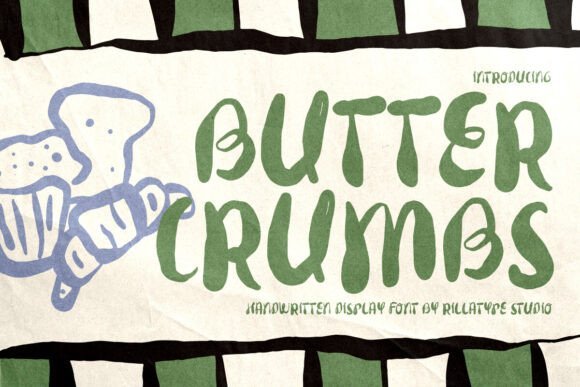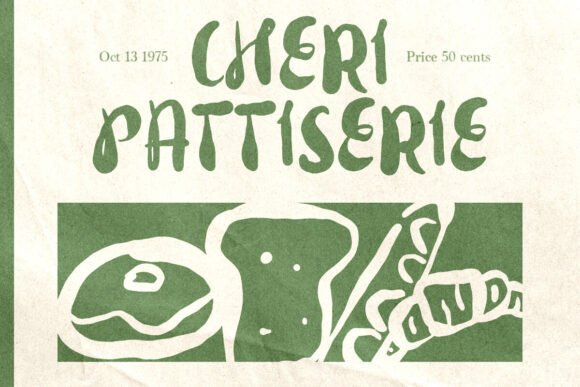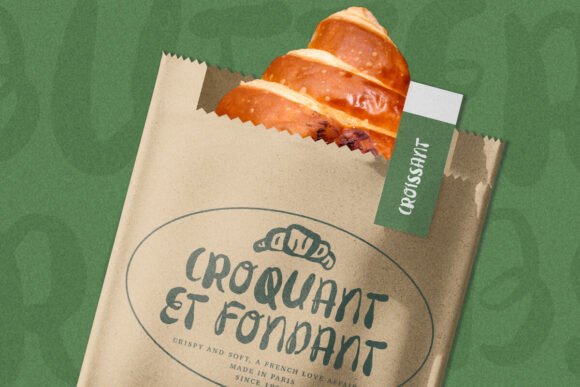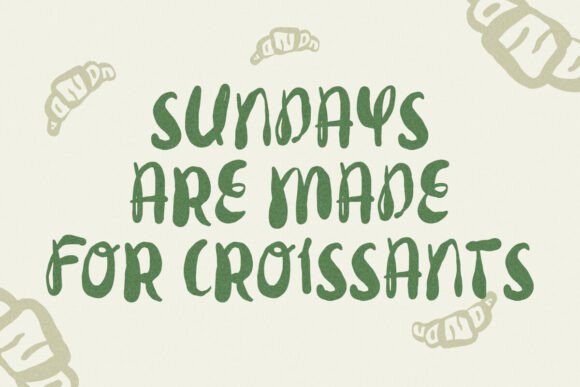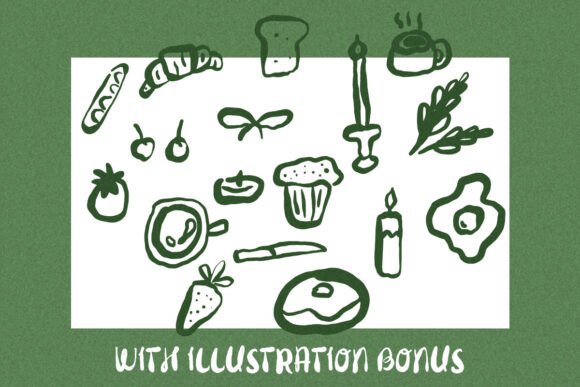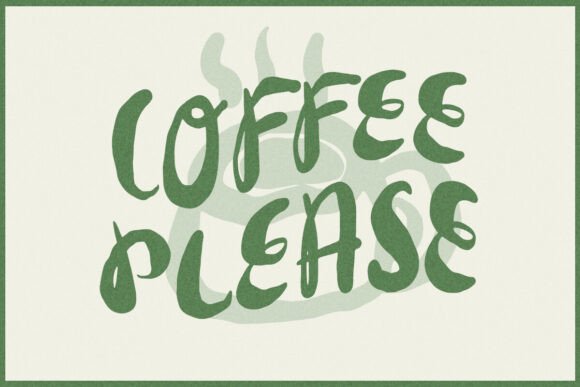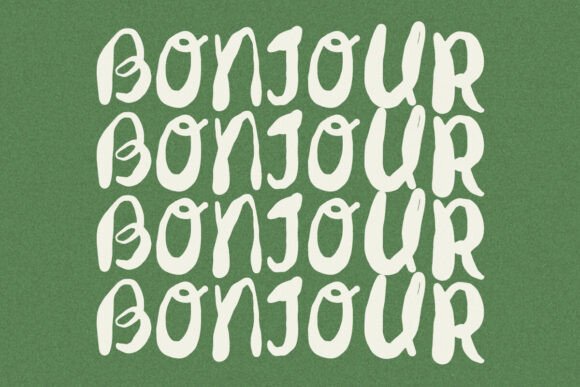
The Perfect Recipe for Design Success: Bread Crumbs Font
Remember that moment when you’re brainstorming ideas for a new food-themed project, and you’re stuck on the perfect font to match your vision? You know, the one where you’re scrolling through font libraries, trying to find that perfect mix of whimsy and charm. That’s exactly where Bread Crumbs Font comes in – a playful, hand-drawn font that’s sure to add a dash of personality to your design.
With its casual, handwritten style, Bread Crumbs Font is perfect for menu designs, café boards, or anything that needs a fun, appetizing vibe. Whether you’re highlighting a delicious dish or creating a cozy café atmosphere, this font is your go-to for tasty typography. As a designer, you’ll appreciate the value of Bread Crumbs Font in bringing your creative vision to life.
Bread Crumbs Font Key Features
- Unique Characteristics: This font features a unique, hand-drawn design with subtle imperfections, giving it a warm and organic feel, perfect for adding a touch of personality to designs.
- Font Styles: The Bread Crumbs font family includes various font styles, such as Regular, Italic, Bold, and Bold Italic, offering designers flexibility and creative freedom.
- Language Support: The font supports a wide range of languages, including Latin, Cyrillic, and Greek scripts, making it an excellent choice for international design projects.
Bread Crumbs Font Review
As a designer, I’ve had the chance to play around with the Bread Crumbs Font, and I must say it’s a decent addition to any UI kit. ✨ The font’s rounded edges and soft curves give it a friendly and approachable feel that works well for user interfaces, especially in the context of navigation menus, buttons, and other interactive elements. ✨ The font’s versatility is also a plus, as it can be used for both digital and print designs.
- Friendly and approachable feel
- Versatile for digital and print designs
- Rounded edges and soft curves
However, there are some limitations to consider. ⚠️ The font may not be the best choice for formal or professional designs, as it can come across as too playful or childish. ⚠️ Additionally, the font’s rounded edges can make it difficult to read in certain contexts, such as in small font sizes or in areas with high text density.
- May not be suitable for formal or professional designs
- Can be difficult to read in small font sizes or high text density areas
Overall, I’d give the Bread Crumbs Font a solid 3.5 out of 5 stars. While it has its limitations, it’s a great choice for UI kits and can add a touch of friendliness to any design. Just be mindful of its use case and make sure it’s the right fit for your project.
Bread Crumbs Font Practical Application Guide
To get the most out of Bread Crumbs Font, try using it in bold or italic styles to add emphasis to your text. You can also pair it with other fonts to create a unique and visually appealing design.
Bread Crumbs Font is commonly used in food and beverage branding, as well as in designs that require a playful and casual feel. It’s also great for headings and titles in blog posts and articles.